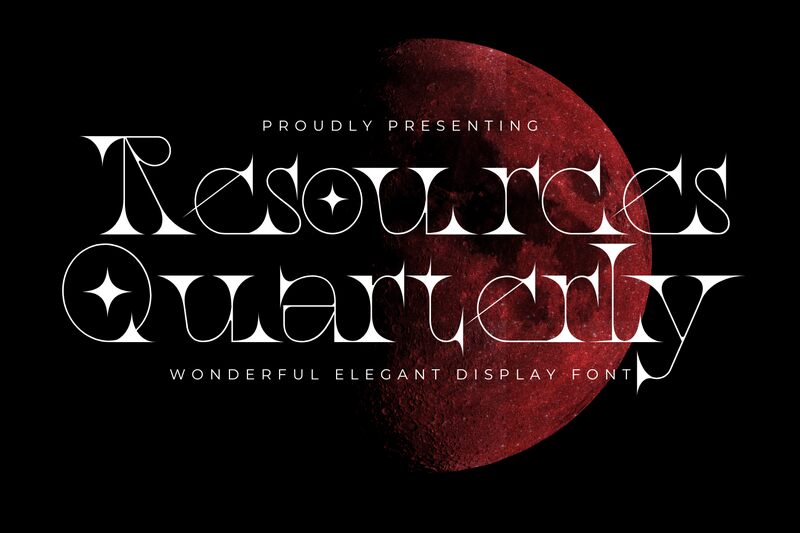
Resources Quarterly, crafted by the esteemed 177Studio, is a display font that exudes elegance and modernity. Its semi-light weight grants it a sleek and refined appearance, making it an exceptional choice for designers looking to infuse their projects with sophistication. The font's distinct character shapes are designed to capture attention while maintaining an air of professionalism.
The aesthetic appeal of Resources Quarterly lies in its harmonious balance between contemporary flair and functional design. This makes the font highly versatile, suitable for editorial headlines, branding materials, and upscale advertising campaigns. Whether employed in digital media or print, Resources Quarterly is poised to elevate creative endeavors with its stylish and polished look.
Embrace the artistic potential of Resources Quarterly for your next project—where clarity meets creativity.